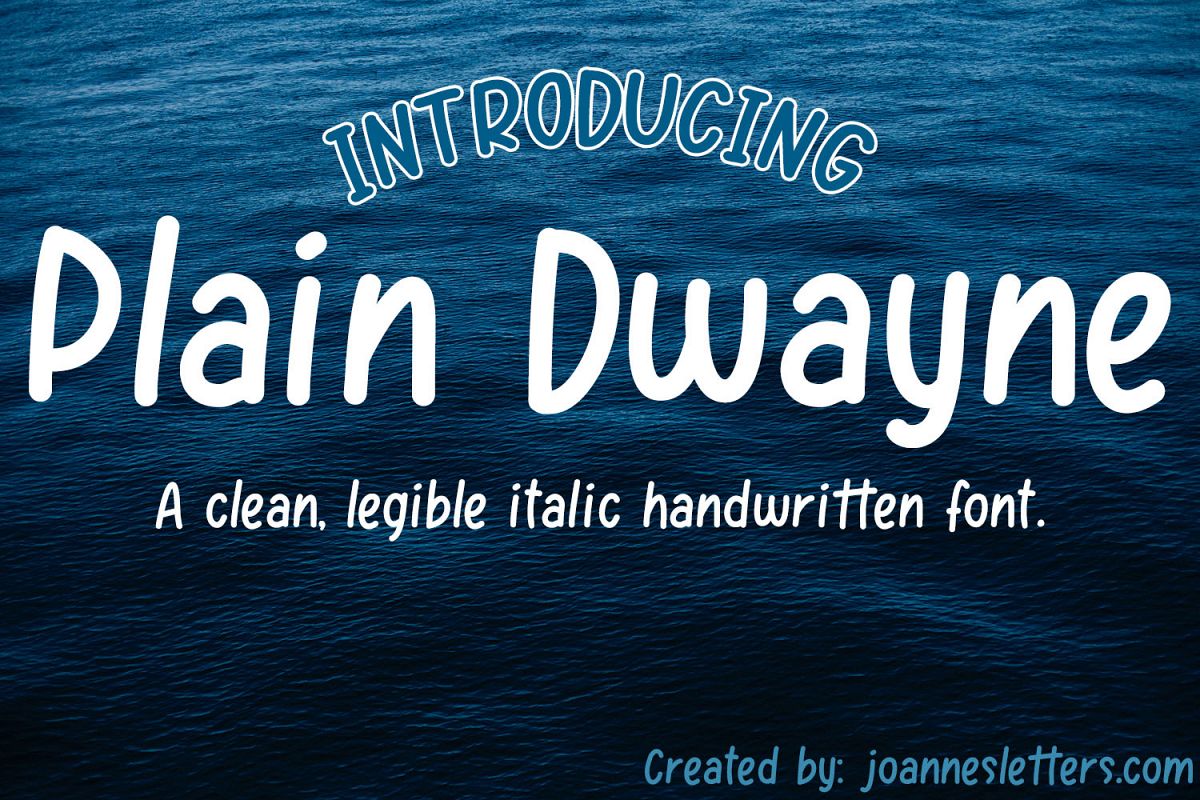
Plain Dwayne | A clean, legible italic handwritten font
Introducing: Plain Dwayne | A clean, legible italic handwritten font
This font style was created because I was also looking for this kind of font, an easy on the eye, not too formal, not too quirky kind of typeface which is perfect for a lot of projects like food labels, kid's party invitations/thank you letters.